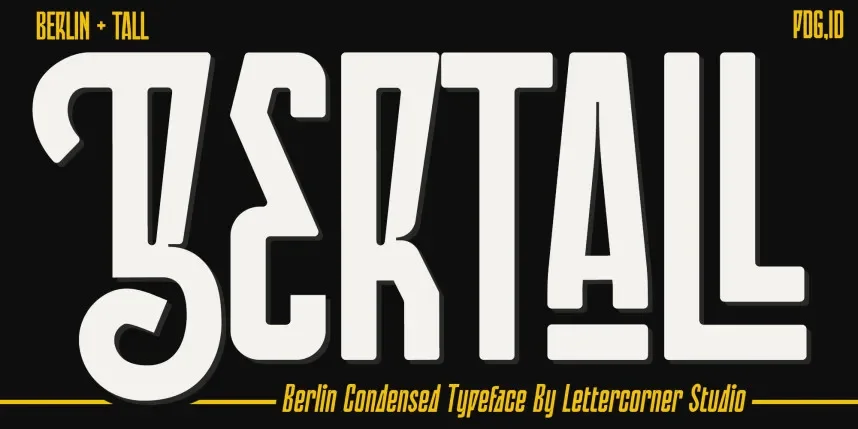
Bertall Font helps solve consistency problems in editorial and branding work where text must remain clear across different sizes and mediums. Designers often need fonts that balance tradition with clean structure.
Bertall Font is generally classified as a serif typeface, featuring refined letterforms, controlled curves, and consistent stroke weight. The serifs provide stability, while the spacing supports readability in paragraphs and headings alike.